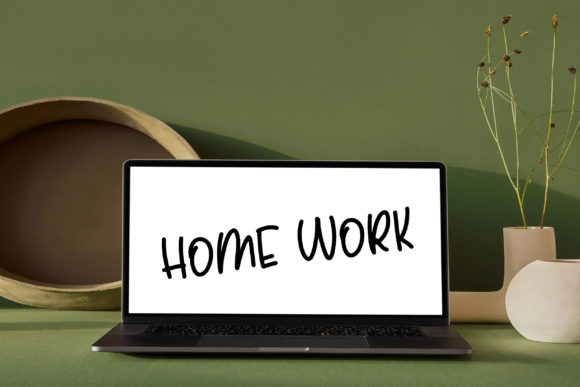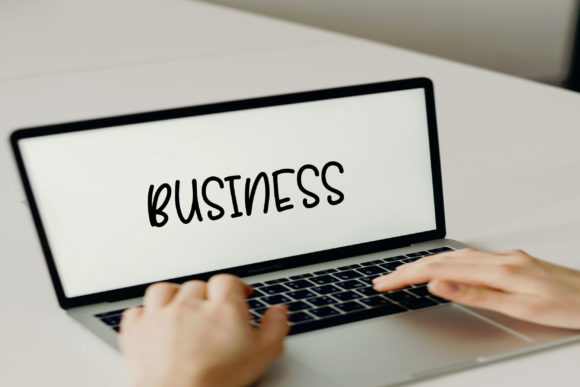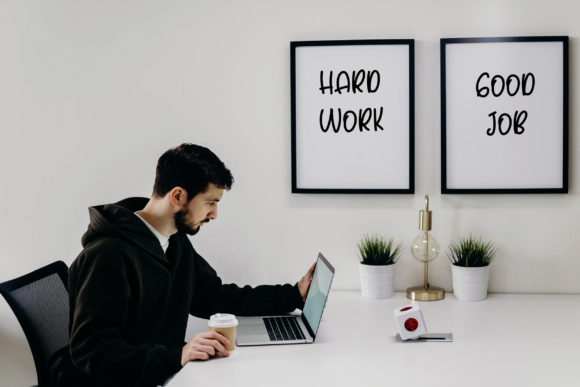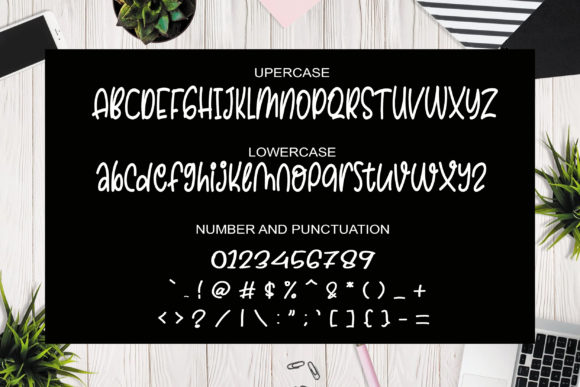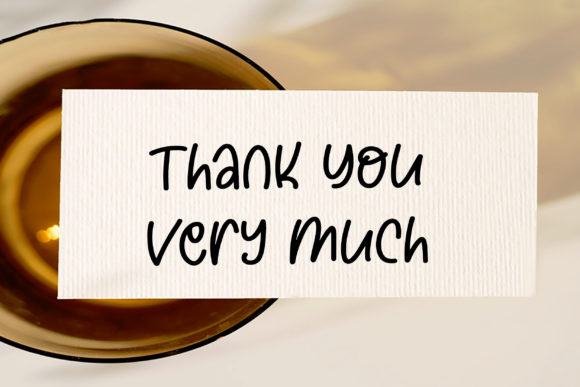
Introducing Farmhouse Font: The Quirky and Friendly Display Font for Your Design Needs
Are you tired of using the same old fonts in your design projects? Look no further than Farmhouse Font, a quirky, relaxed, and friendly display font that’s perfect for adding a touch of personality to your work. With its unique charm and adaptability, Farmhouse Font is sure to become a staple in your design toolkit.
The Characteristics of Farmhouse Font
Farmhouse Font is a display font that’s all about having fun and being friendly. Its quirky and relaxed vibe makes it perfect for designs that need a bit of personality and whimsy. Here are some of the key characteristics that make Farmhouse Font stand out:
- Quirky and Relaxed: Farmhouse Font has a laid-back, effortless feel that’s perfect for designs that need to be fun and approachable.
- Friendly Display Font: With its bold and playful letters, Farmhouse Font is designed to grab attention and make a statement.
- Adaptable: Whether you’re working on a logo, poster, or social media graphic, Farmhouse Font can adapt to any design idea you have.
Why Designers and Crafters Love Farmhouse Font
So, why do designers and crafters love Farmhouse Font? Here are just a few reasons:
- Easy to Read: Despite its playful nature, Farmhouse Font is surprisingly easy to read, making it perfect for designs that need to communicate a message.
- Versatile: Farmhouse Font can be used in a variety of design contexts, from logos and branding to posters, flyers, and social media graphics.
- Unique: With its quirky and relaxed vibe, Farmhouse Font is a great way to add some personality to your designs and stand out from the crowd.
How to Use Farmhouse Font in Your Design Projects
Now that you know a bit more about Farmhouse Font, let’s talk about how to use it in your design projects. Here are a few ideas to get you started:
- Logos and Branding: Use Farmhouse Font to create a fun and friendly logo that’s perfect for crafty businesses or lifestyle brands.
- Posters and Flyers: Add a playful touch to your posters and flyers with Farmhouse Font, perfect for promoting events or announcing sales.
- Social Media Graphics: Use Farmhouse Font to create eye-catching social media graphics that are sure to grab attention.
Tips for Getting the Most Out of Farmhouse Font
Here are a few tips for getting the most out of Farmhouse Font:
- Experiment with Colors: Farmhouse Font looks great in a variety of colors, so don’t be afraid to experiment and find the perfect hue for your design.
- Play with Pairings: Try pairing Farmhouse Font with other fonts to create a unique and interesting contrast.
- Keep it Simple: Don’t be afraid to keep things simple and use Farmhouse Font on its own – it’s a bold and playful font that can stand on its own.
In conclusion, Farmhouse Font is a quirky, relaxed, and friendly display font that’s perfect for designers and crafters who want to add a touch of personality to their work. With its adaptable nature and unique charm, Farmhouse Font is sure to become a staple in your design toolkit. So why not give it a try and see how it can elevate your designs?